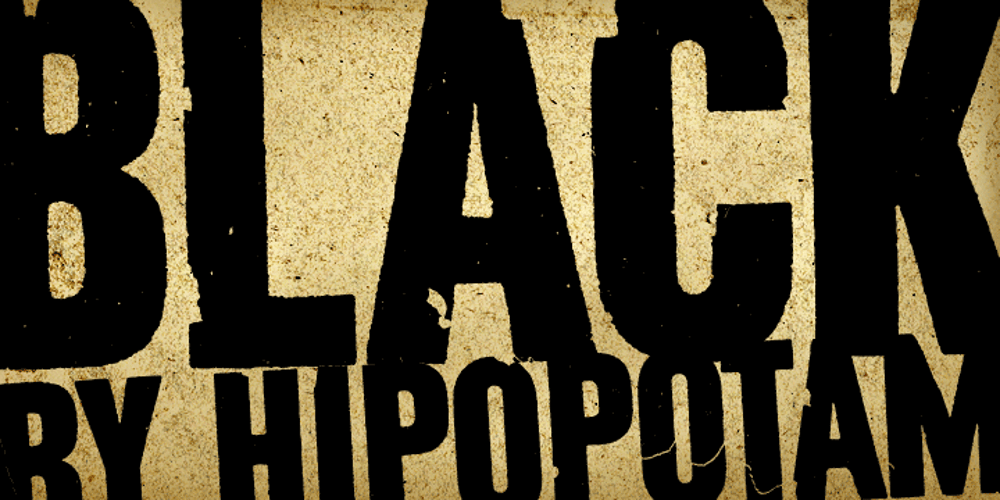
Mr Black
Mr Black font
Mr Black Font Family was designed by Aleksandra and Daniel Mizielińscy and published by Hipopotam Studio. Mr Black contains 1 styles and family package options. To design Mr Black, we used old (’70-’80) dry transfer lettering sheets that were used by my grandfather who was a military cartographer. We had only two almost used-up sheets. The letters didn’t transfer so well but we liked the way they were damaged. All of the characters have a very high resolution so they can be used in a large scale. Mr Black doesn’t have lowercases but has up to three alternate uppercase for each letter. Checkout Mr Tiger if your looking for lowercase letters with the same distortion effect. We designed it for our book for children, “Who eats Whom”